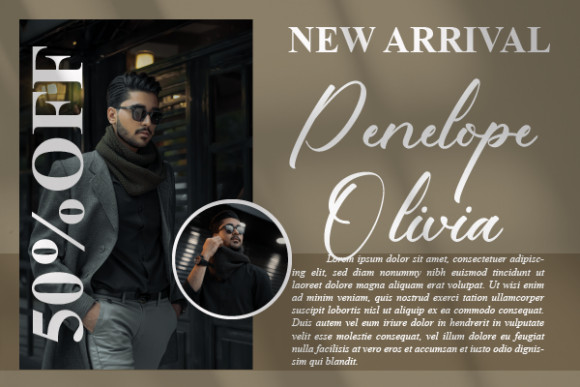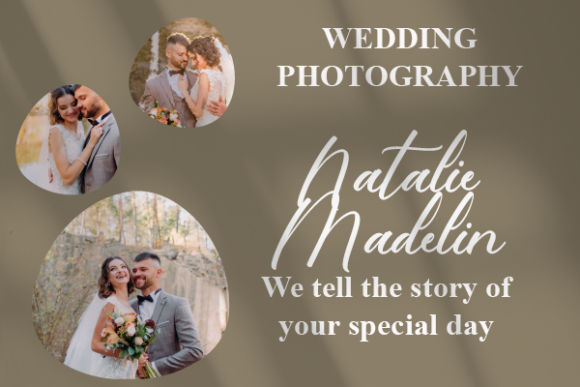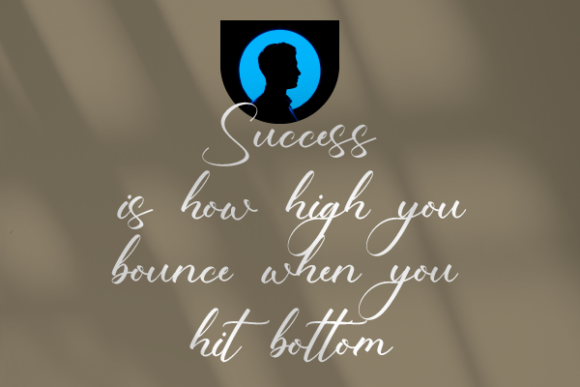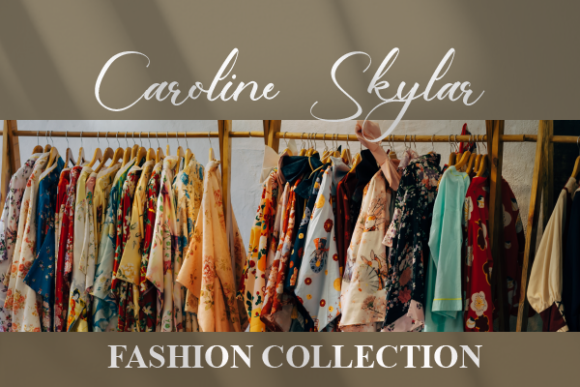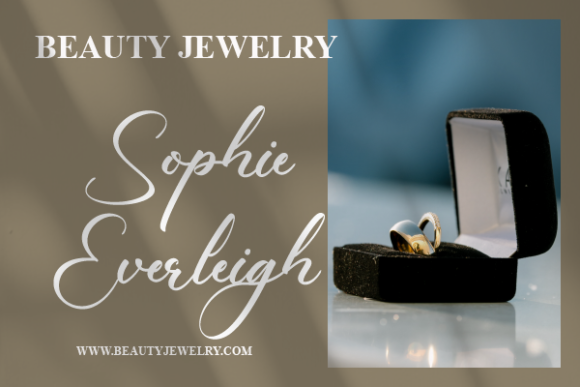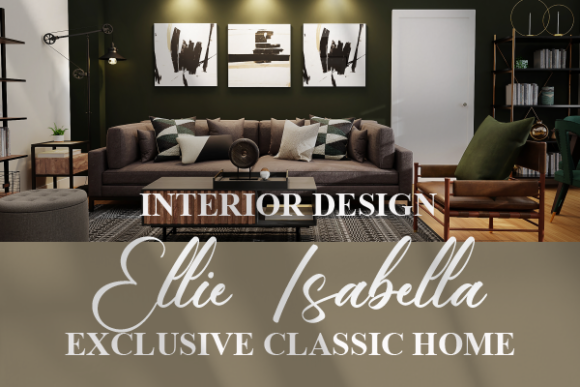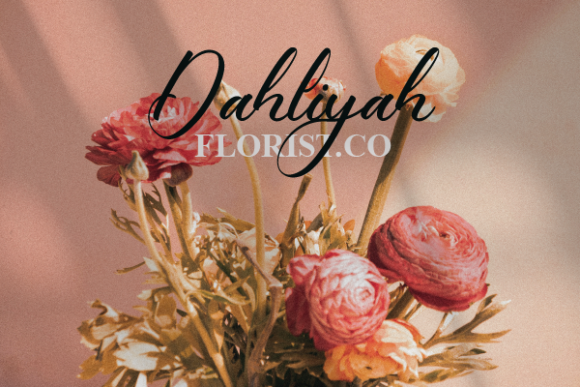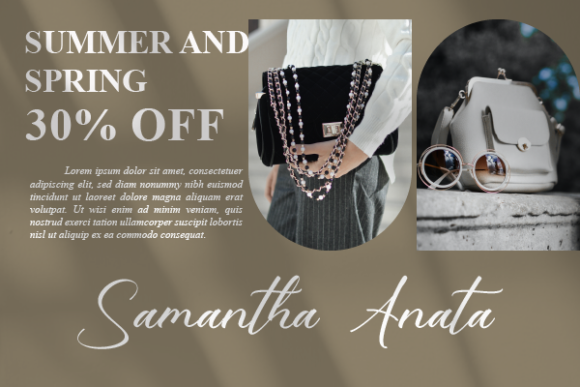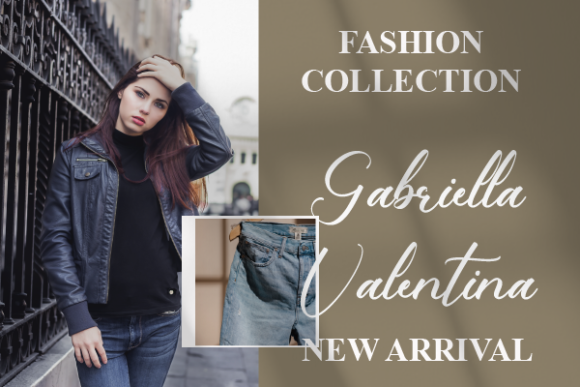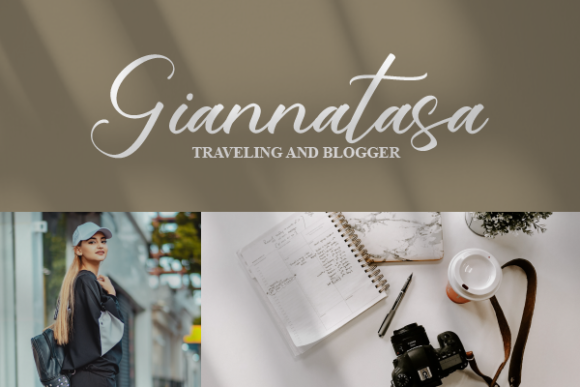
Alicia Helyn Font
About Alicia Helyn Font
Alicia Helyn emerges as a refined, elegant, and fluid handwritten font, embodying delicate charm in every stroke. The beauty of this font lies in its meticulously crafted characters, each possessing a perfect balance that renders it compatible with a diverse range of design concepts. Integrate Alicia Helyn into your most imaginative projects, and witness how it breathes life into them, enhancing their visual allure and leaving an indelible impression.
The font’s delicate nature is a standout feature, with each character thoughtfully designed to exude grace and sophistication. Alicia Helyn’s flowing curves and seamless lines contribute to a harmonious aesthetic, elevating the overall visual appeal of any project it graces. Whether applied to branding, invitations, or other creative ventures, this font seamlessly adapts, ensuring a cohesive integration with various design elements.
Alicia Helyn stands out as an embodiment of elegance, offering a versatile option suitable for both digital and print media. Its adaptability allows it to seamlessly merge with diverse design contexts, making it an ideal choice for projects spanning different creative realms.
The handwritten style of Alicia Helyn imparts a personal touch to any endeavor, establishing a genuine connection with the audience. The fluidity of its characters creates an inviting atmosphere, making it perfect for conveying heartfelt messages or fostering a warm ambiance within your designs.
Introducing Alicia Helyn into your design arsenal opens up a realm of possibilities, as its timeless appeal and flexibility make it suitable for a wide array of applications. Whether crafting a vintage-inspired piece or a modern design, this font effortlessly aligns with the intended aesthetic, showcasing its versatility and enhancing the overall visual impact.
In summary, Alicia Helyn transcends being a mere font; it becomes a design ally that brings your creative visions to life. With its delicate, elegant, and flowing characteristics, Alicia Helyn adds a touch of sophistication and authenticity to your projects, making them truly unforgettable.